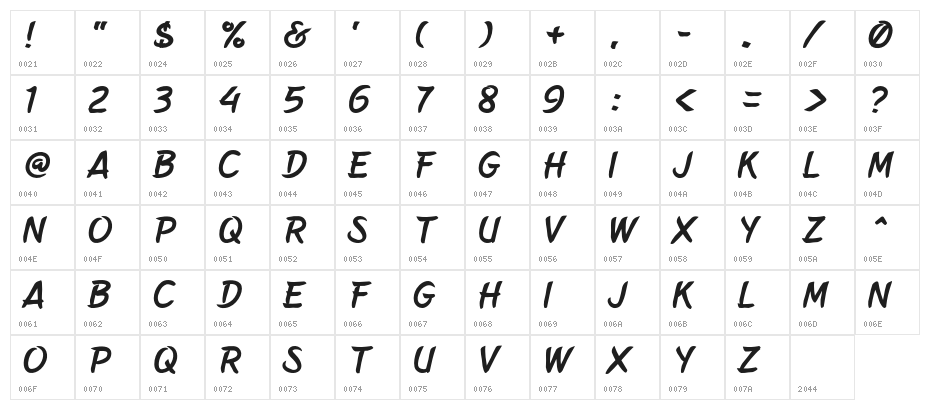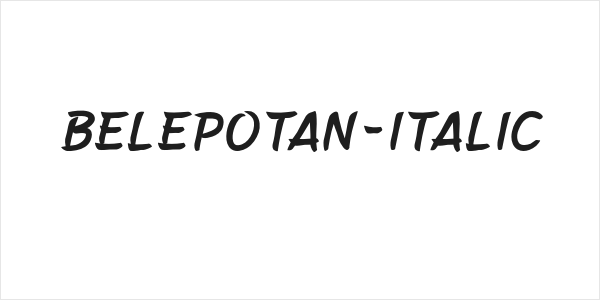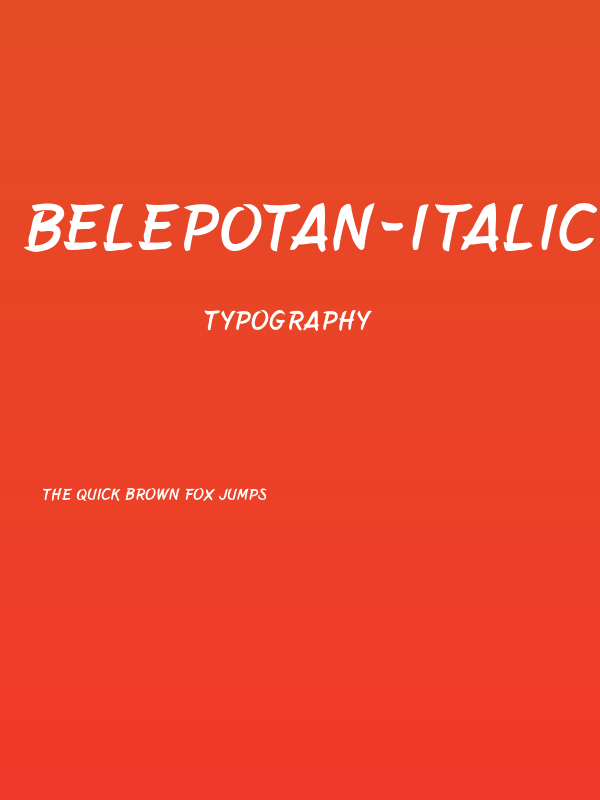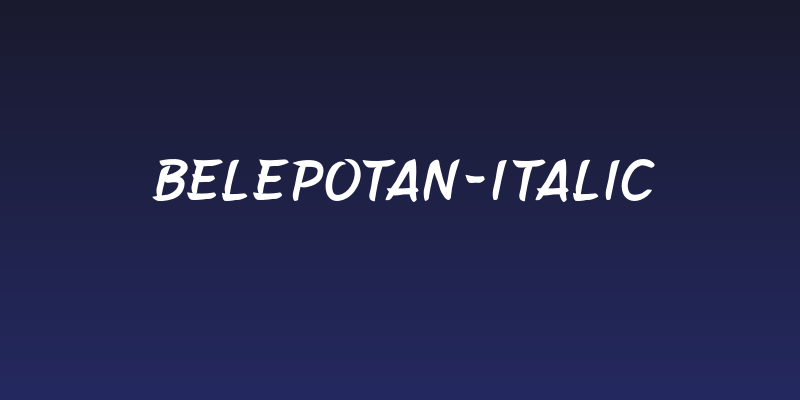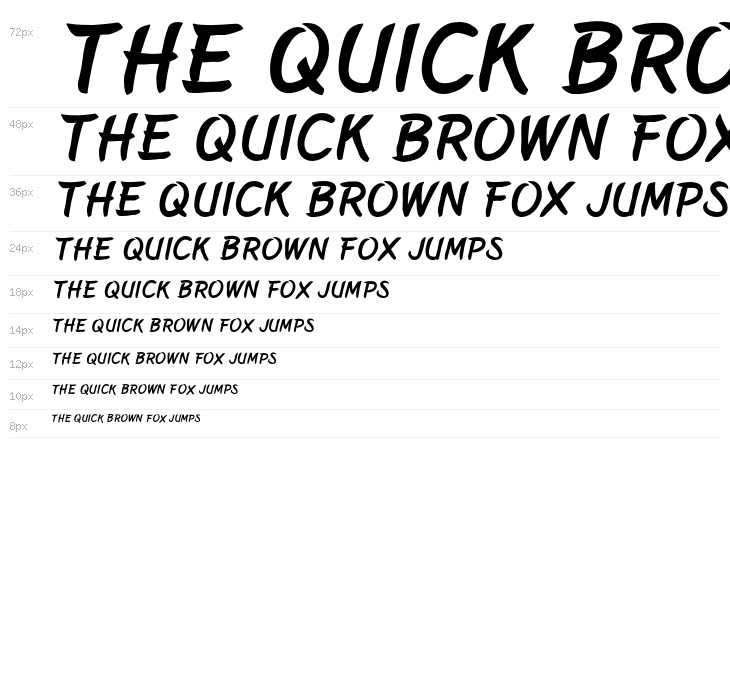
Belepotan-Italic Font
Belepotan-Italic Description
This font features a dynamic and fluid italic style with a handwritten appearance. The characters are bold and slightly slanted, giving a sense of motion and energy. The strokes are thick and consistent, providing a strong visual impact. The uppercase and lowercase letters maintain a cohesive style, with rounded edges and smooth curves. Numbers and special characters are designed to match the overall aesthetic, ensuring uniformity across all elements. This font is ideal for projects that require a personal touch or a creative flair.